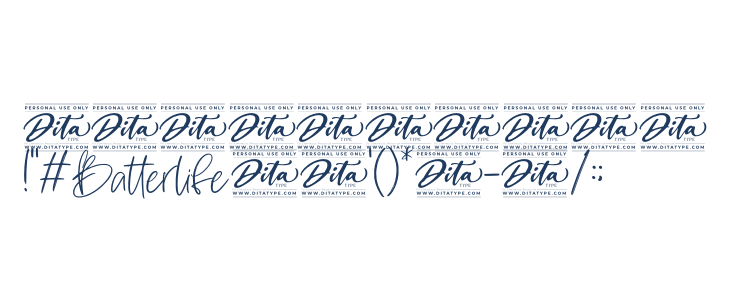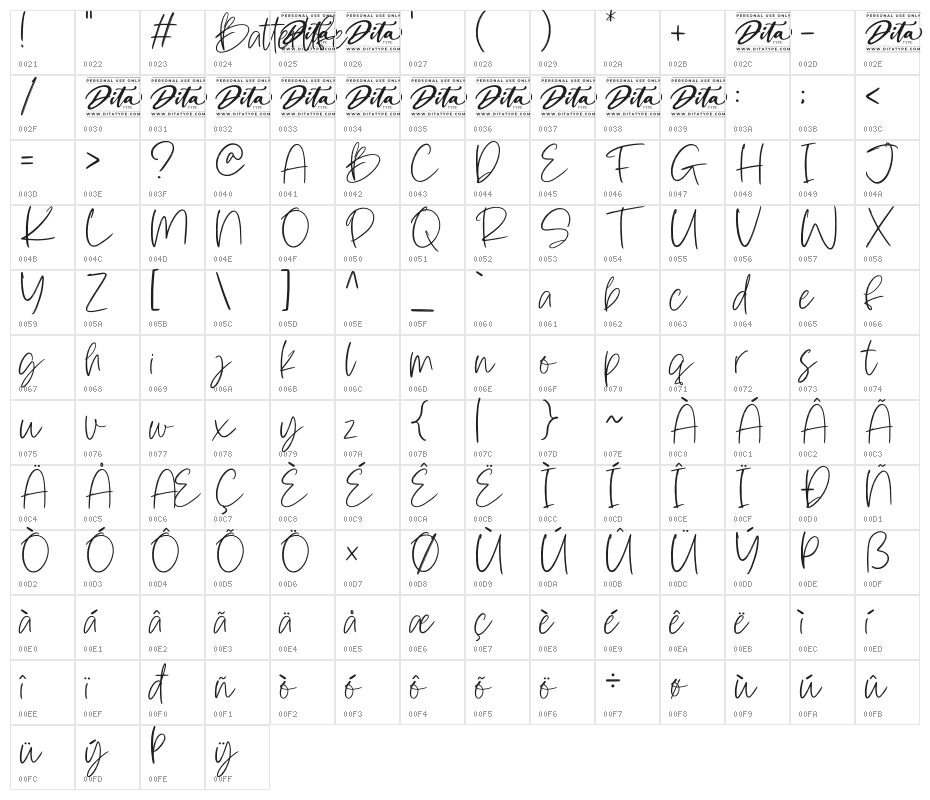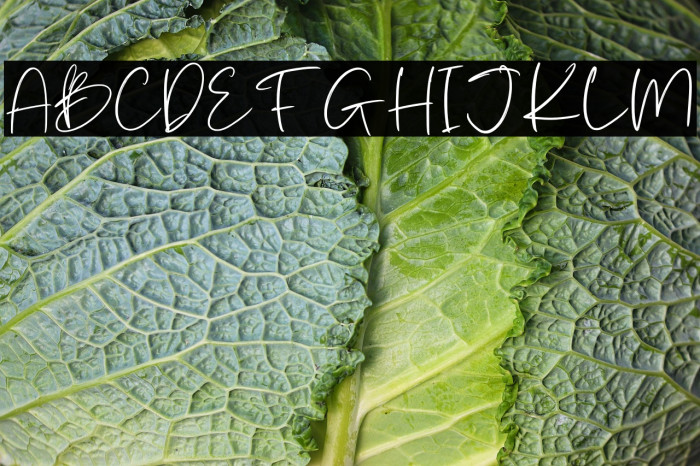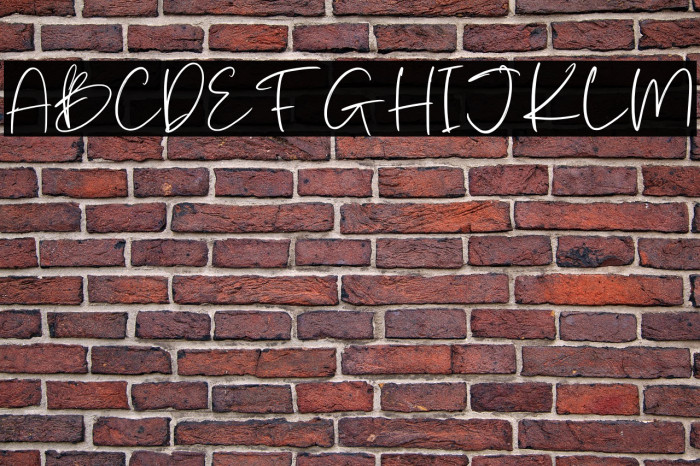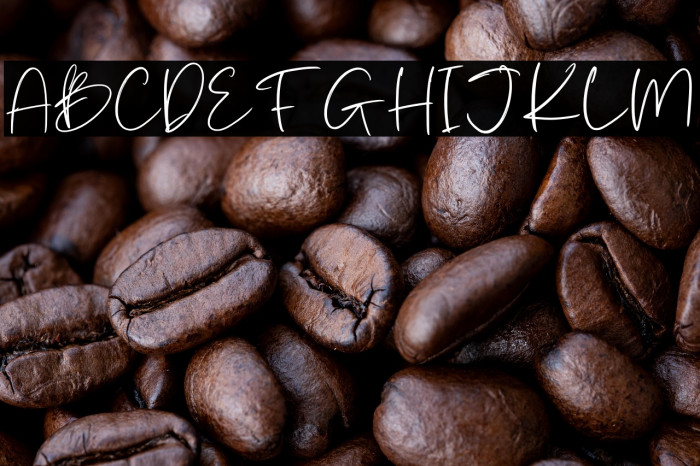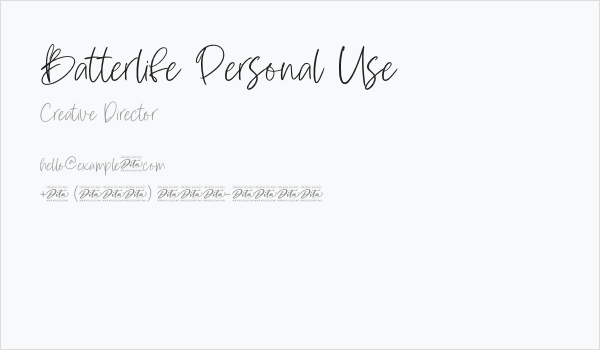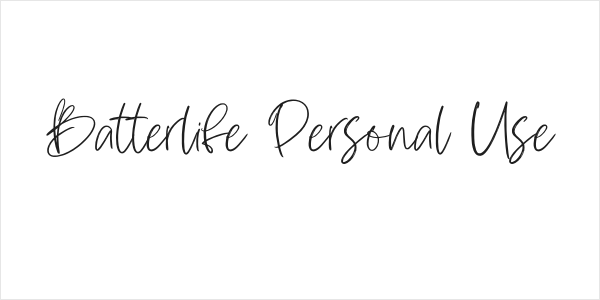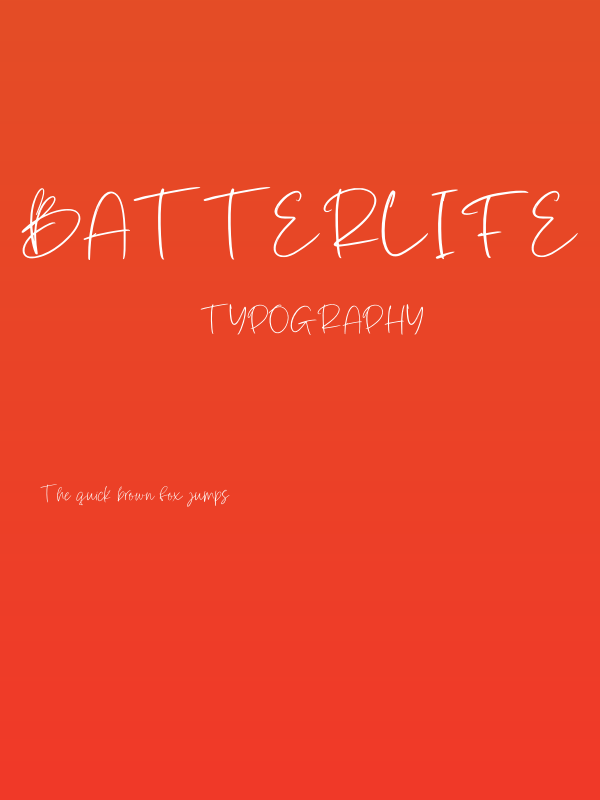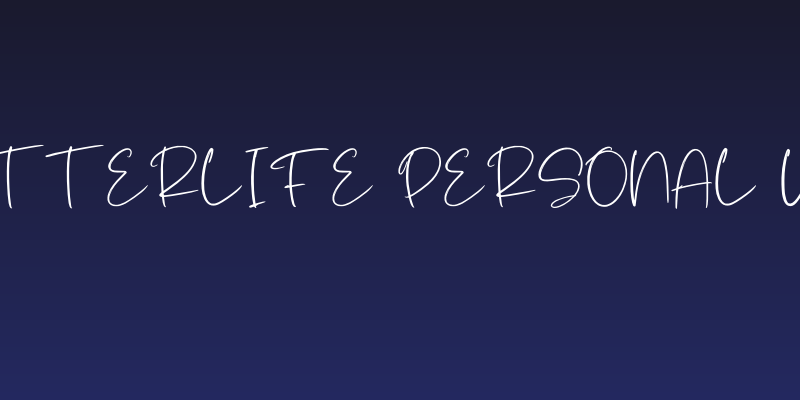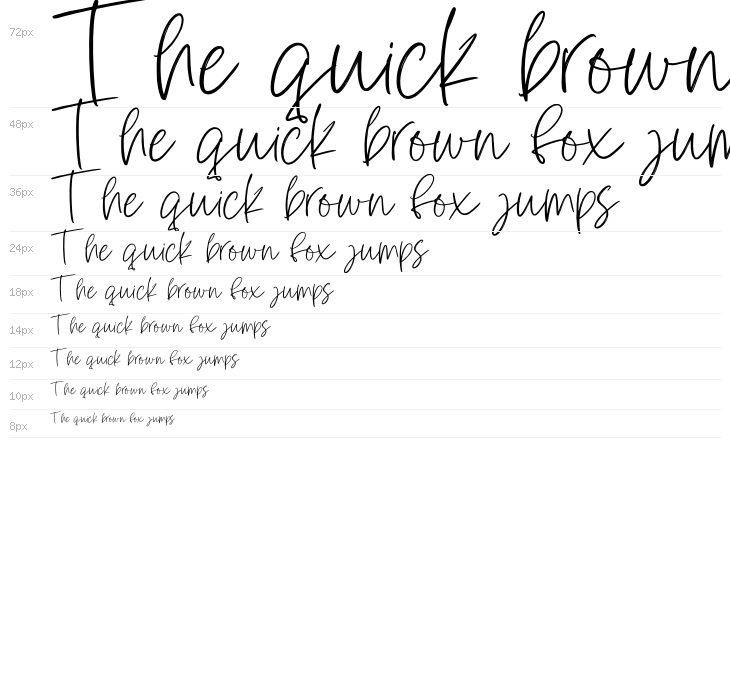
Batterlife Personal Use Font
Batterlife Personal Use Description
This font features a lively and energetic handwritten style, characterized by its fluid strokes and playful curves. The uppercase letters are tall and slender, while the lowercase letters exhibit a more relaxed and casual appearance. The overall design is dynamic, with varying stroke widths that add a sense of movement and personality. The font maintains a consistent baseline, ensuring readability despite its whimsical nature. It is well-suited for creative projects that require a personal touch, such as invitations, greeting cards, and branding materials.